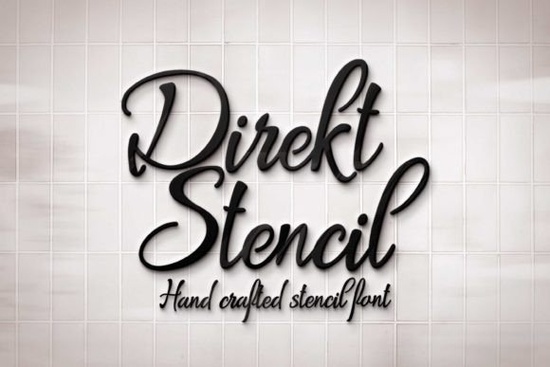
If you're looking for a clean, elegant script font that works beautifully for hand-lettered designs especially stencils Direkt Stencil Font is a practical choice. It’s not overly ornate or fussy, but it carries the warmth and rhythm of real handwriting while staying crisp and legible at small sizes. That balance makes it especially useful for crafters making reusable stencils, wedding stationery designers, and small businesses printing greeting cards or boutique packaging.
What kind of projects does Direkt Stencil work well for?
This font shines where authenticity meets clarity. Think: wedding invitations with soft ink impressions, thank-you cards stamped on kraft paper, minimalist business cards for lifestyle brands, or framed quotes in home offices and nurseries. Because its letters are carefully spaced and its stencil-style breaks are consistent not random it cuts cleanly on vinyl, wood, or metal. That’s why it’s featured in Creative Fabrica’s CF Class: Create Your Own Reusable Stencils, a hands-on resource for turning digital fonts into physical tools.
It’s also versatile enough to pair well with sans-serif or serif typefaces in layered layouts. Try pairing it with a sturdy geometric sans for contrast, or set it alone over a textured background for instant visual calm.
How does it compare to other script fonts on Creative Fabrica?
Unlike some flowing scripts that blur at smaller sizes or struggle with tight spacing, Direkt Stencil keeps its structure intact even when scaled down to 12 pt or cut as a fine-line stencil. If you’ve tried Relationship Font, you’ll notice Direkt Stencil has less flourish and more functional rhythm. It’s closer in tone to Marney Holland Font both lean toward modern elegance but Direkt Stencil includes built-in stencil gaps, so no extra vector editing is needed.
For crafters who regularly switch between projects, having a dedicated stencil font saves time. You won’t need to manually add breaks or adjust outlines before cutting. That’s different from baseball-themed scripts like Baseball Font, which leans into sporty energy rather than refined simplicity.
Who benefits most from using this font?
- Print-on-demand sellers who offer customizable greeting cards or wall art Direkt Stencil adds a personal, hand-done feel without requiring actual handwriting.
- Wedding stationery designers who need fonts that print cleanly on letterpress, foil-stamp, or digital presses and scale reliably across save-the-dates, menus, and signage.
- Small business owners creating branded packaging, tags, or in-store signage its readability supports both aesthetic and function.
- Crafters and educators building reusable stencils for classroom use, DIY home decor, or community workshops.
Practical tips before you start designing
When working with Direkt Stencil, keep these small but meaningful details in mind:
- Test cut at your intended size first especially if using thicker material like 1/8″ wood or heavy-duty vinyl.
- Use the font’s OpenType features (if available) for alternate characters some versions include subtle variations for lowercase “a,” “g,” or “s” to avoid repetition in longer text.
- For layered prints (like ink over foil), set the font in 100% black with no stroke this ensures clean registration.
- If you’re importing into Cricut Design Space or Silhouette Studio, convert text to outlines after finalizing layout. That prevents unexpected shifts if the font isn’t installed on another machine.
You’ll also want to explore how it fits within your existing toolkit. If you already use Relationship Font for romantic themes or Marney Holland Font for vintage charm, Direkt Stencil fills a distinct niche: modern, precise, and ready-to-cut. And since it’s listed under Direkt Stencil Font in the script fonts category, it’s easy to revisit alongside similar options.
One last note: while stencil fonts simplify physical production, they still benefit from thoughtful hierarchy. Pair Direkt Stencil with a strong sans-serif for headings or captions don’t rely on it alone for blocks of body text. Its strength is in moments of emphasis, not endurance.